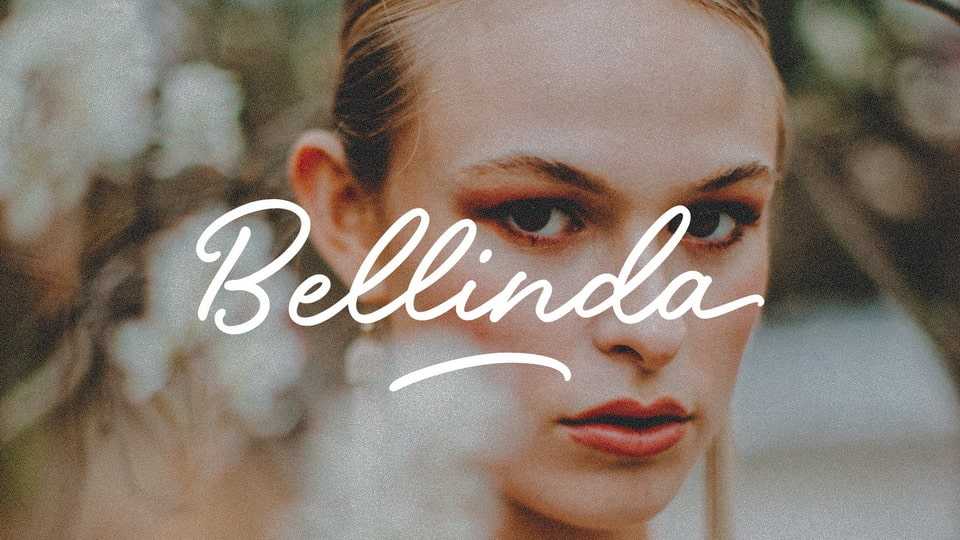
Download Bellinda font, a handmade typeface written with a thick pen to make them look bigger and wider so that the written words can be read properly. Bellinda is also equipped with several ligatures, two types of ending swashes on each lowercase character and added a few replacement characters in lowercase.
Designer: Redy Studio